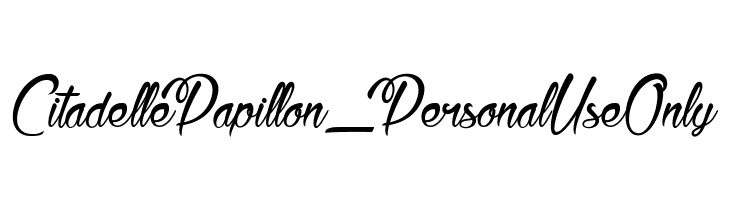
An elegant, flowing script font with a sophisticated, handwritten style.
A decorative and elegant script font with flowing cursive letters and stylish swashes.
A dynamic and flowing script font with elegant, cursive letterforms.